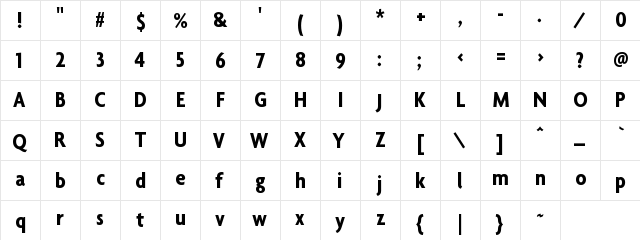
Agenda-BoldCondensed Regular
Design Context for Agenda-BoldCondensed Typeface
Agenda-BoldCondensed takes a measured approach to typography — its balanced proportions and neutral character make it a reliable workhorse for both digital and print work. The heavy weight commands attention and anchors typographic hierarchies. The condensed width makes it efficient for tight spaces without sacrificing legibility.